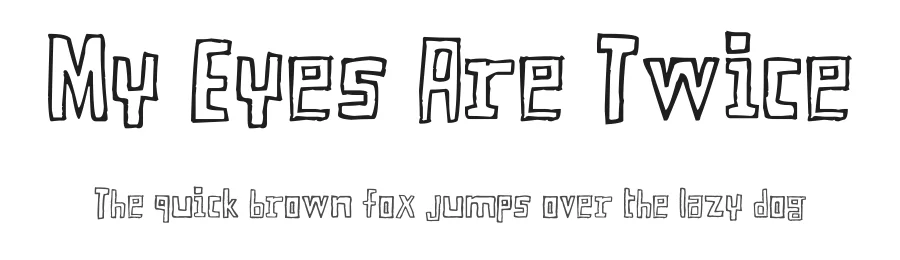
About Lowery Font
A font equally inspired by my friends obsession with video games and my love of fighting games growing up. It was made with video games in mind, but I think it works well for various genres from Fantasy to Fighting to Hack n' Slash.
Lowery Font is a decorative font that shines as a display or heading face. Pair it with a clean sans-serif or serif font for body text β the contrast creates a clear hierarchy while the two styles stay balanced and easy to read.